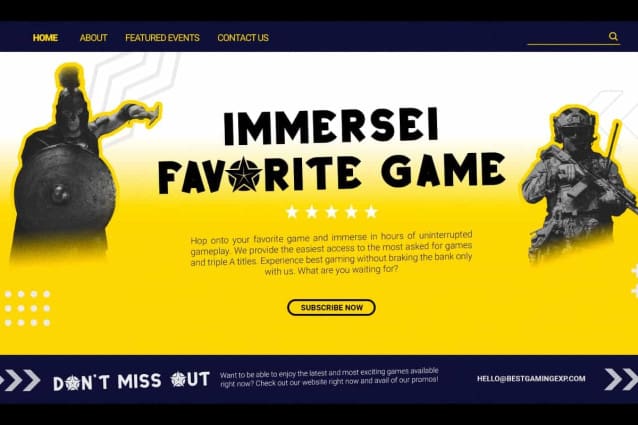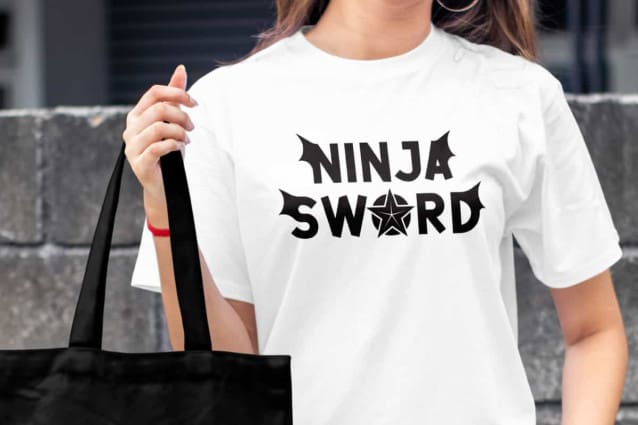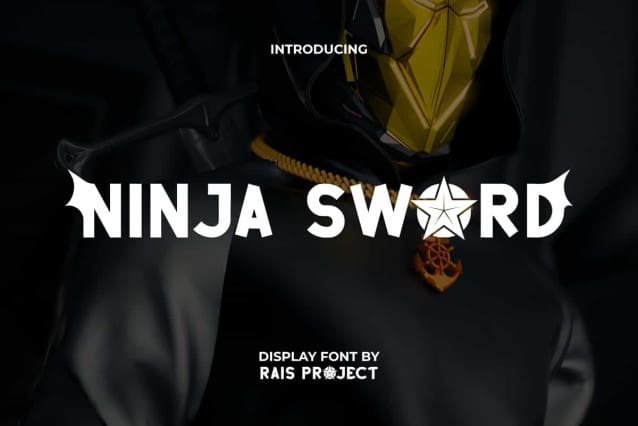
Ninja Sword Font
Ninja Sword Font is a unique playful cartoon and cool display font. This font has bold characters and cute shape that resembles a ninja weapon. It will be good for any designs, such as advertisement, brand image, custom design, cover, invitation, label, menu, poster, product packaging, quotes, stationery, website page, and more!
Ninja Sword Font includes a full set of ALL CAPS for Uppercase and Lowercase Letters, Numerals, and large range of Punctuation. This font has a Bold version as well and Alternate characters that will be suitable for various industries, such as accessories, café, event or festival, fashion, game, merchandise, movie, printing, publishing, sport, etc.